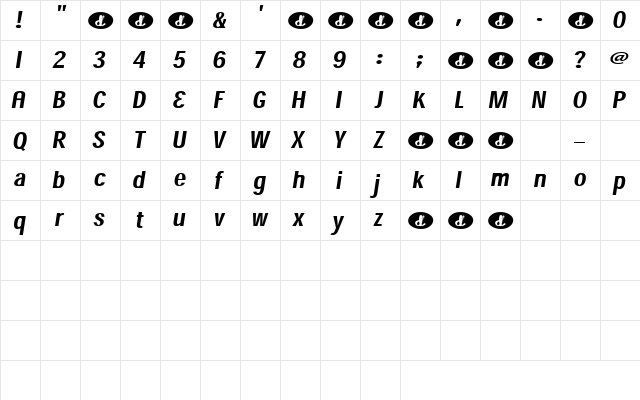
Hollywood1978 Regular Font Preview
Hollywood1978 Regular
Hollywood1978 Regular Font Details
Design Context for Hollywood1978 Typeface
Hollywood1978 echoes the hand-painted signage and woodblock typography of the American frontier, with a warm, rugged personality.
A natural fit for craft spirits, ranch branding, rodeo events, and Americana-inspired design work.
Font Pairing: Combine Hollywood1978 with a simple slab or neutral sans — period-accurate companions reinforce the vintage feel without competing for attention.
Pro Tip: Use Hollywood1978 for short, impactful bursts of text — it shines in poster headlines and product names rather than extended copy.